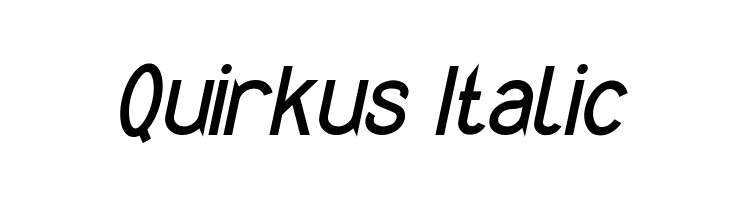
A bold, modern typeface with clean lines and strong visual impact.
A wide, bold sans-serif typeface with clean lines and modern appeal.
A bold, modern sans-serif typeface with a strong and confident appearance.
A bold, modern sans-serif font with a strong, clean appearance.
A bold, narrow typeface with a modern and impactful design.
A bold, condensed sans-serif font with a modern and clean design.
A bold, modern sans-serif font with strong, thick strokes and a geometric structure.
A modern, italicized font with sleek, angular characters and a dynamic appearance.
A modern, geometric font with a sleek, futuristic design.
A modern, italicized outline font with a futuristic and geometric style.
A sleek, italicized, extra-condensed font with a modern and streamlined appearance.
A modern, expanded semi-italic font with geometric design and uniform stroke width.
A modern, italicized font with expanded characters and medium contrast.
A bold, futuristic font with geometric and angular design.
A bold, semi-italic font with a modern, angular design.
A sleek, modern semi-italic font with sharp angles and a dynamic appearance.
A sleek, modern italic font with sharp angles and a futuristic style.
A sleek, modern italic font with a dynamic and futuristic style.
A futuristic, geometric font with clean lines and unique letterforms.
A bold, rounded font with a playful and dynamic style.
A modern, geometric font with clean lines and a minimalist aesthetic.
A bold, italicized font with a modern and dynamic style.
A sleek, modern, and italicized font with thin, consistent strokes and a condensed form.